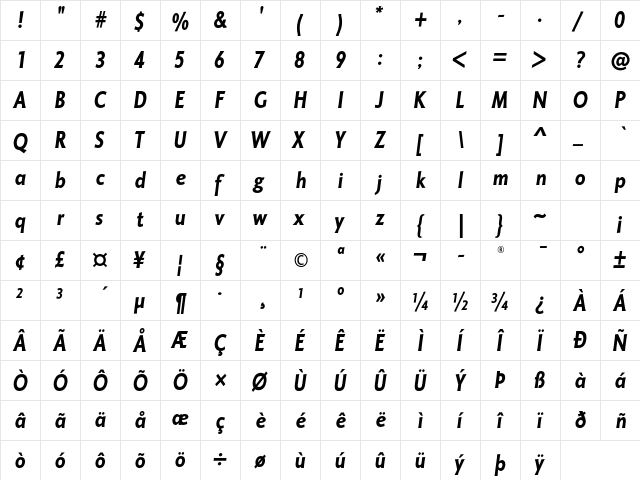
Octone ITC Std Bold Italic Font Preview
| Designer | Eric de Berranger |
Design Context for Octone ITC Std Typeface
Octone ITC Std is a composed and adaptable typeface that performs quietly and consistently across a wide range of design contexts. Its italic angle brings a sense of urgency and motion to the letterforms. The heavy weight commands attention and anchors typographic hierarchies.
Pro Tip: Try Octone ITC Std for annotation and caption copy alongside an upright companion — the contrast in angle creates a dynamic but ordered typographic system.